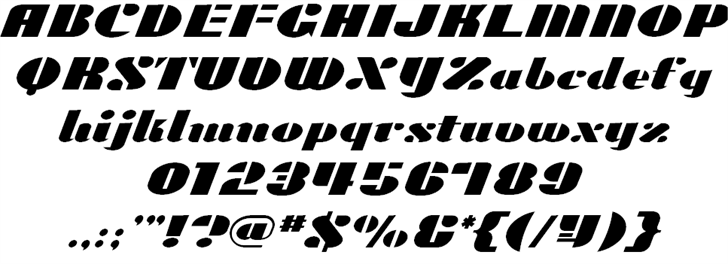
Download and enjoy this free caldiabold font. Cool typeface to showcase your designs in a modern way. Font Space has created this amazing and beautiful free typeface. You can create a professional designs with this cool font.